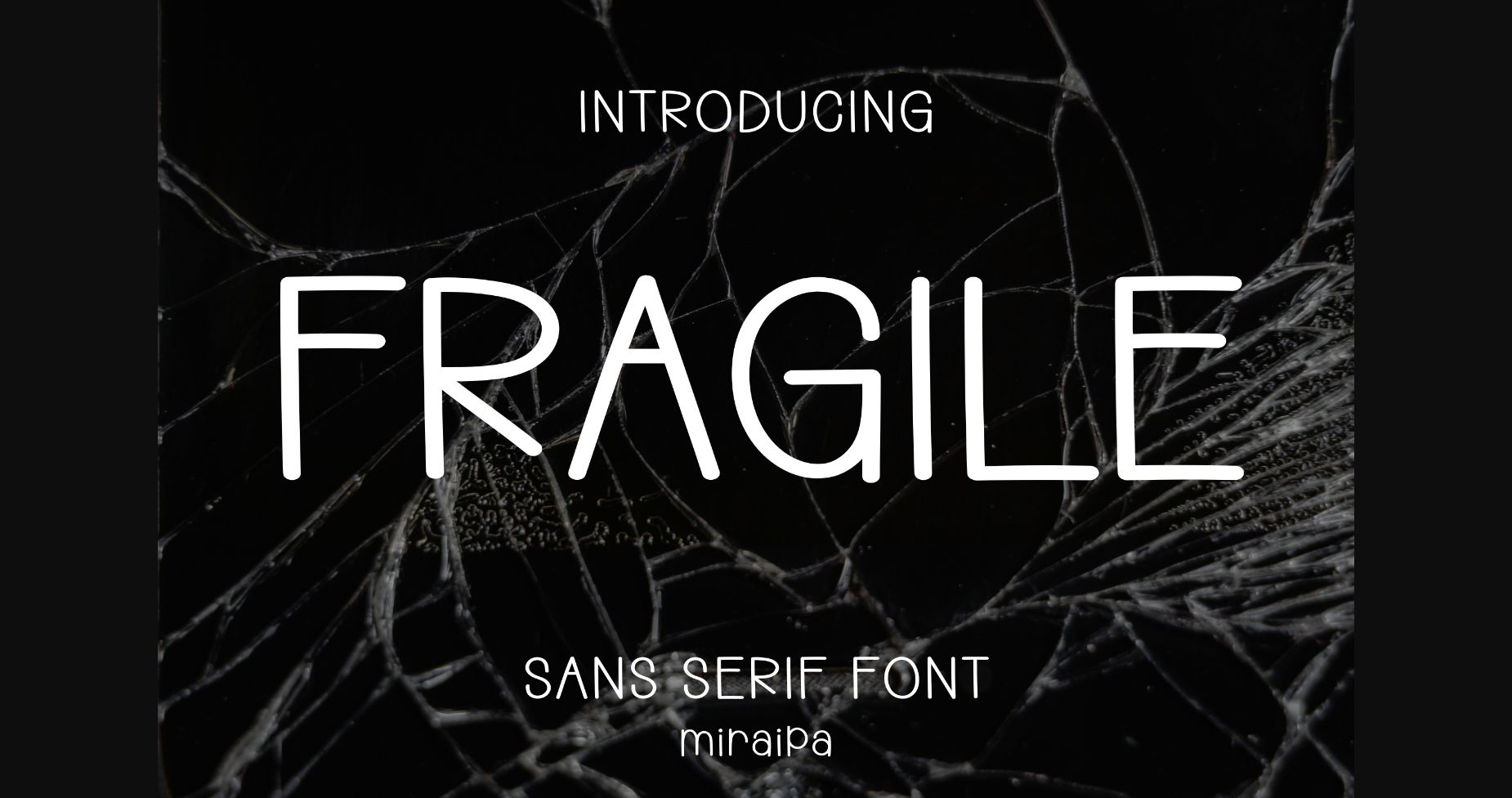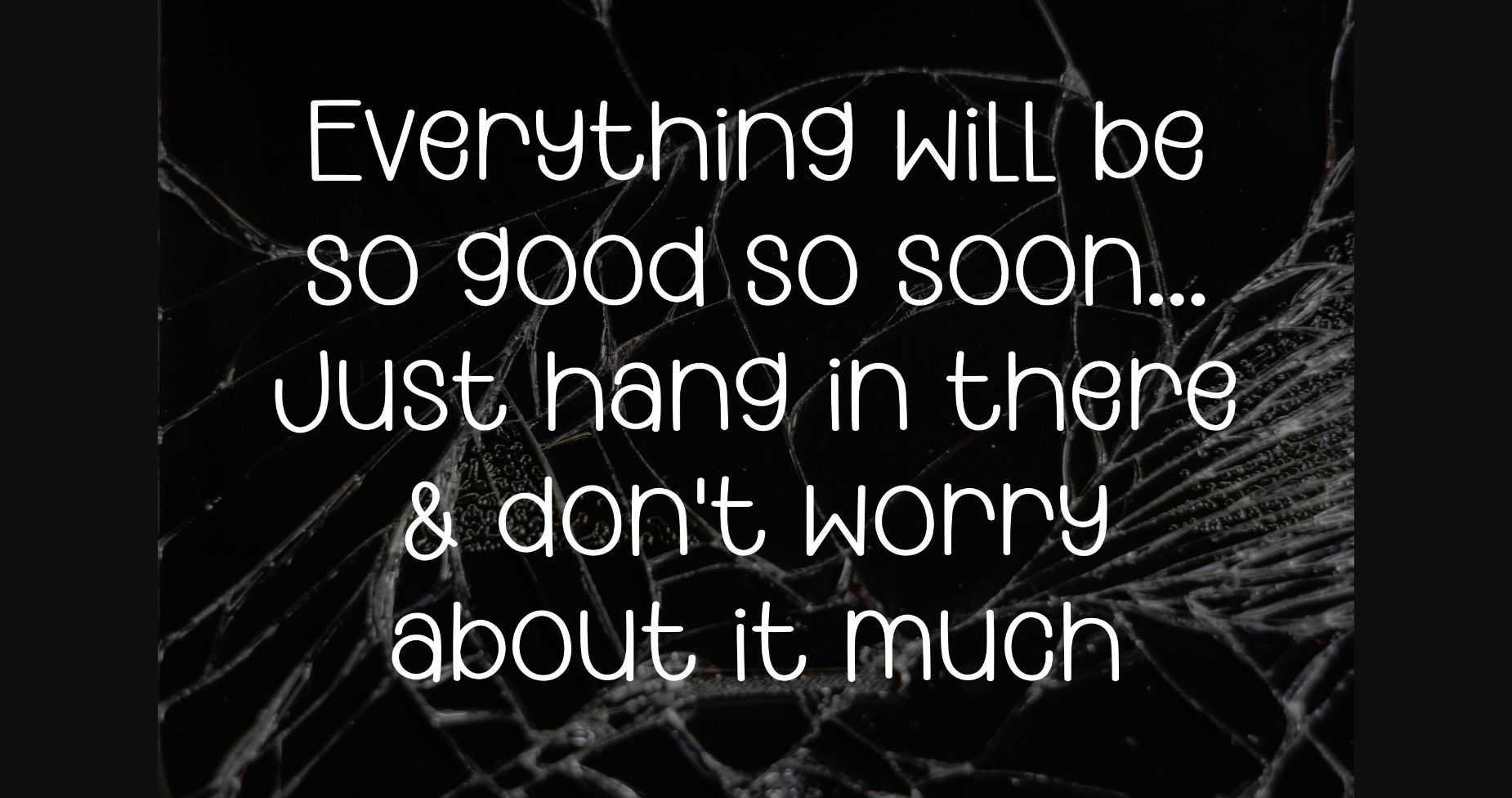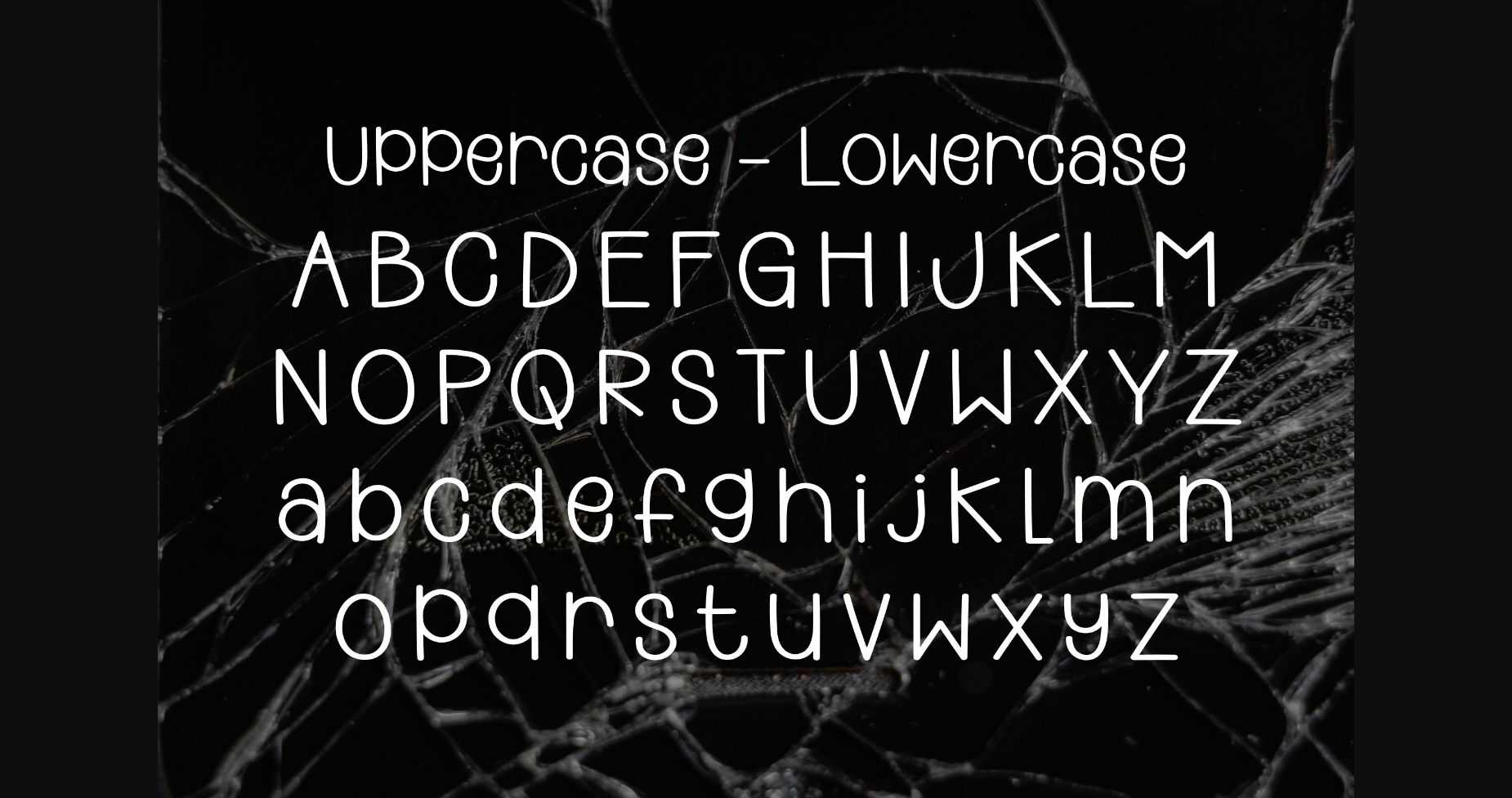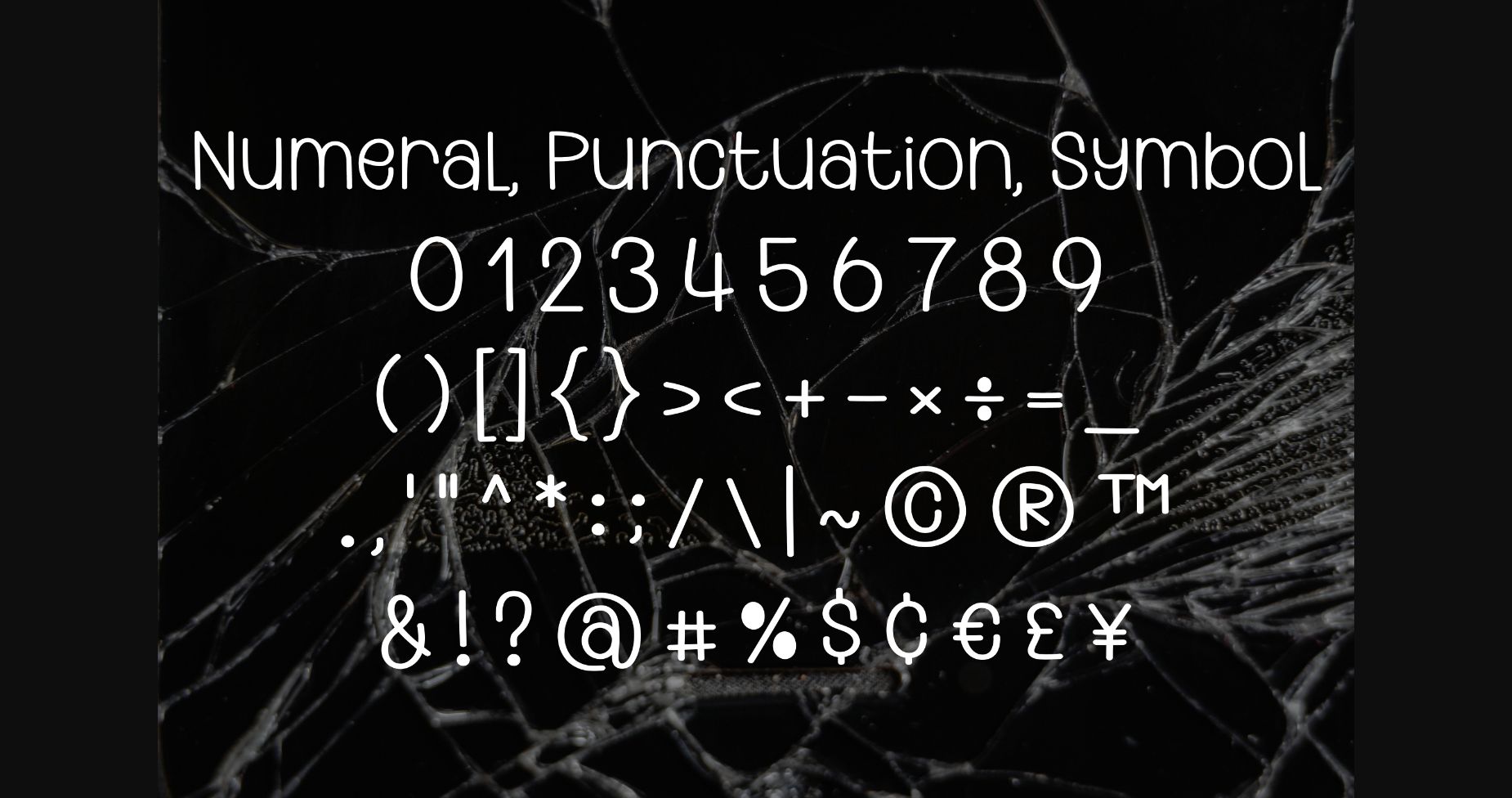
About Fragile Font
Fragile is designed in a modern and minimalist handwritten sans serif font style. It would be perfect for your projects or diary planners.
You can also try it for Easter, back to school, weddings, party decoration, invitations, Fall, Halloween, Christmas, posters, blogs, clothing, child-related designs, greeting cards, social media posts, or anything that needs a friendly touch.